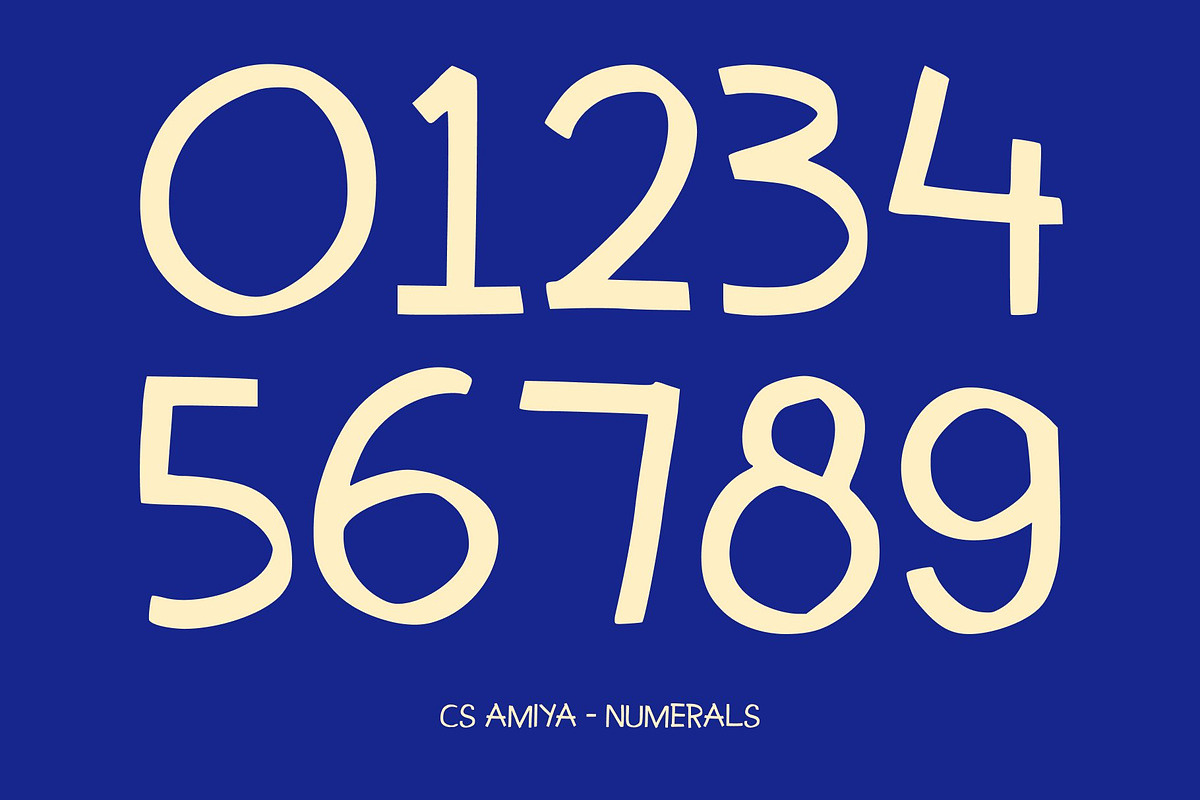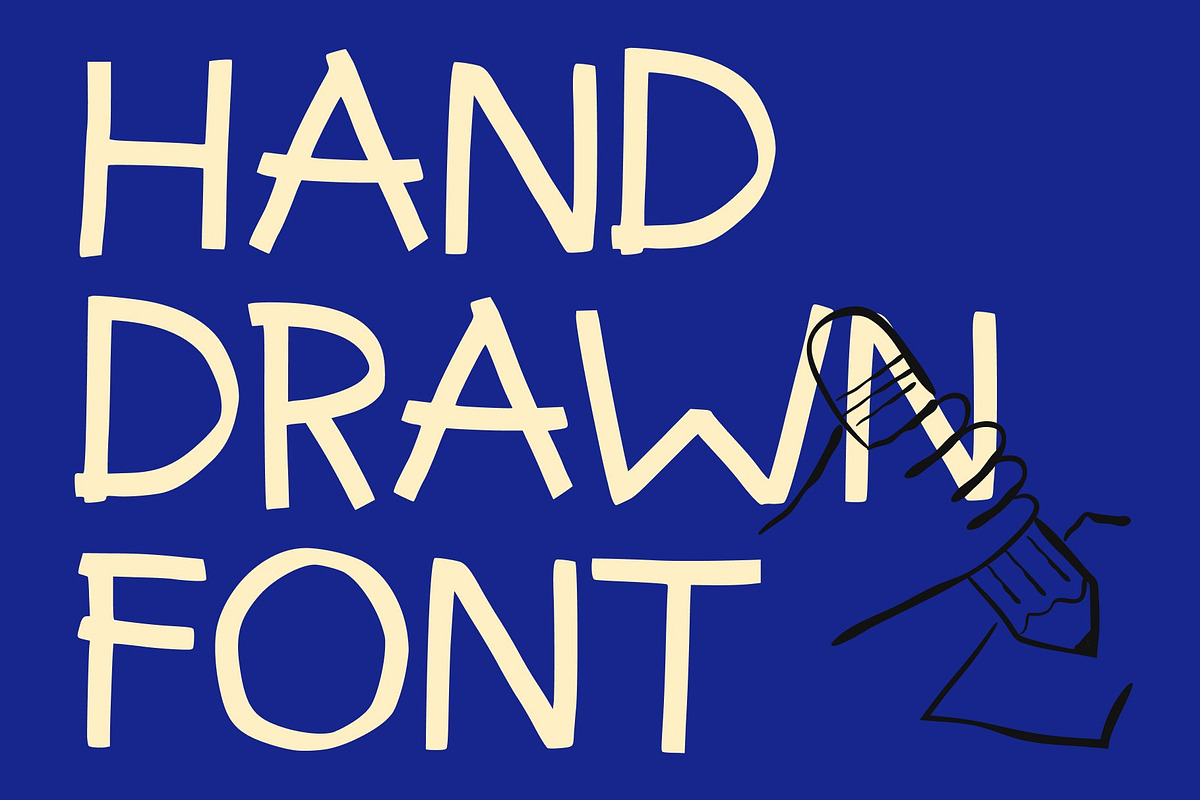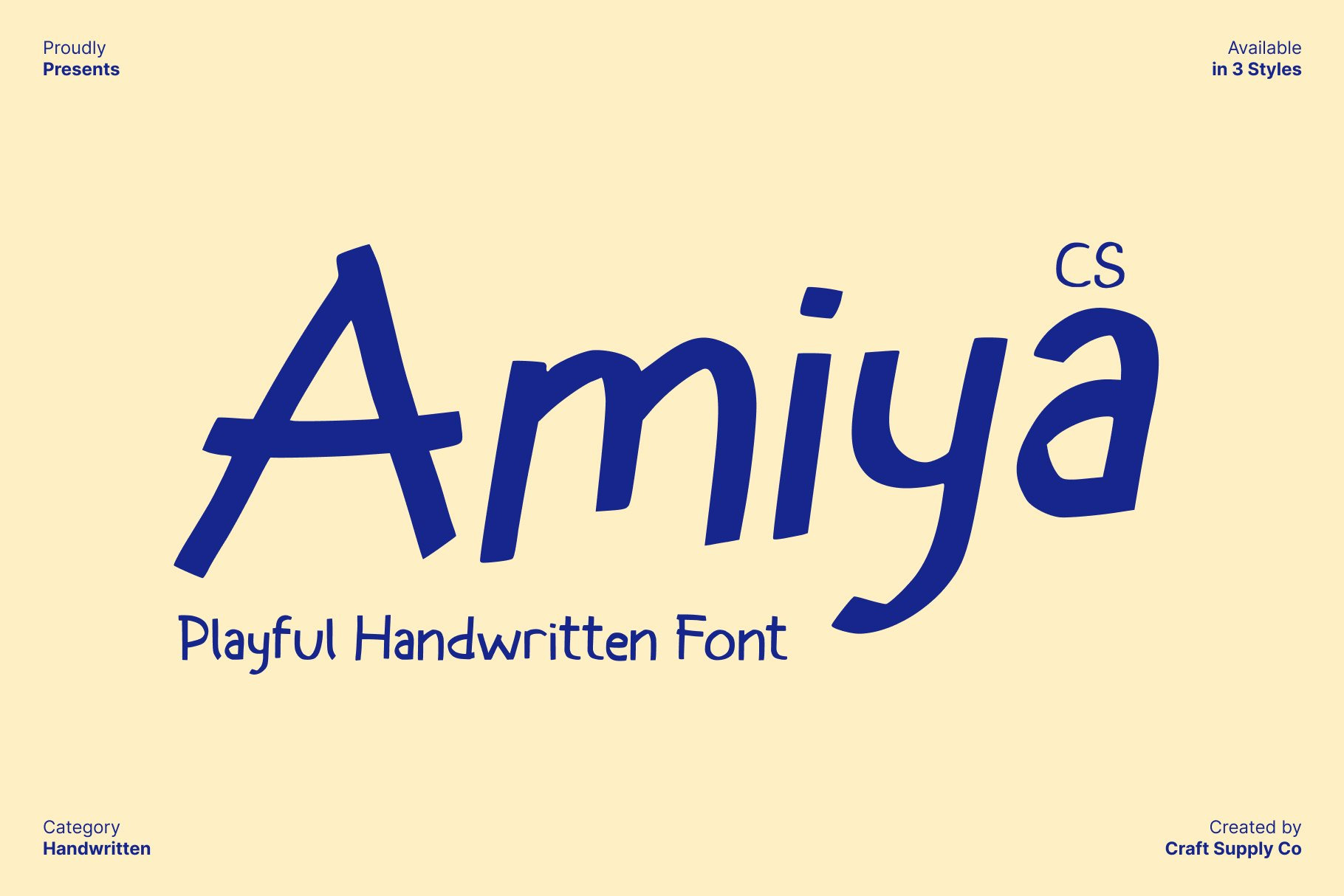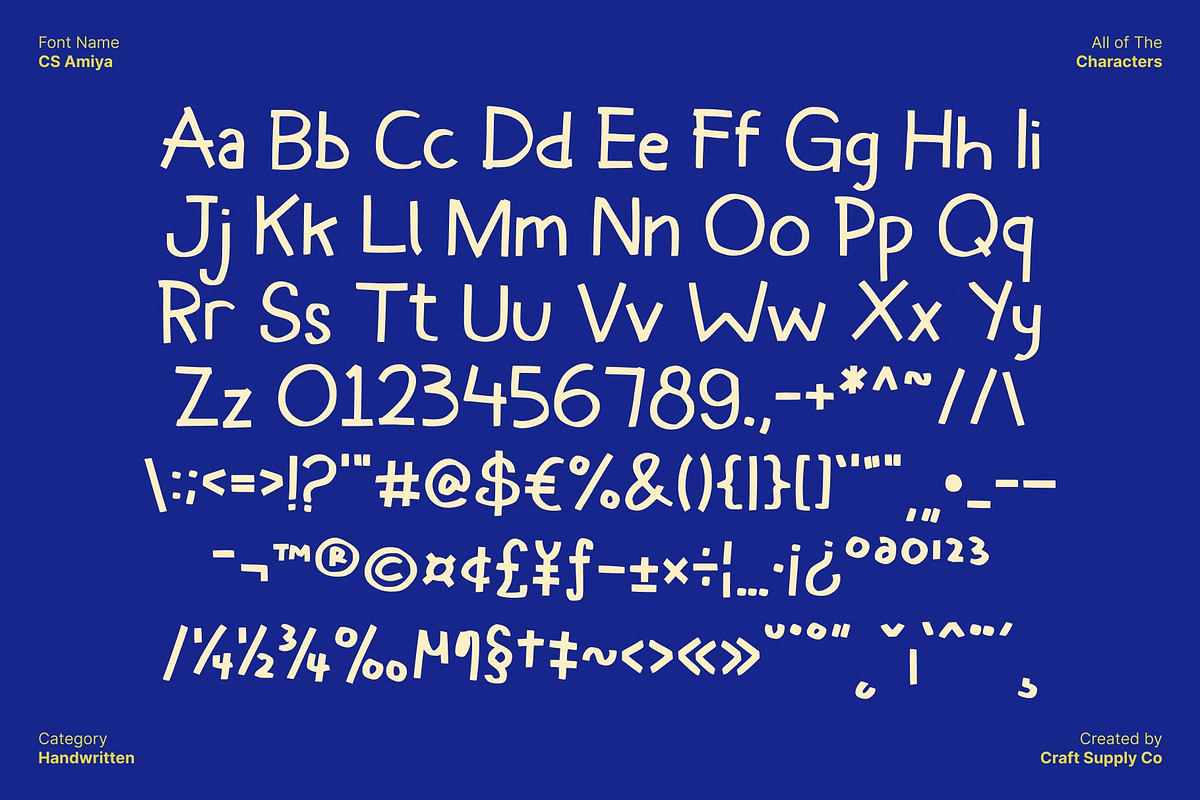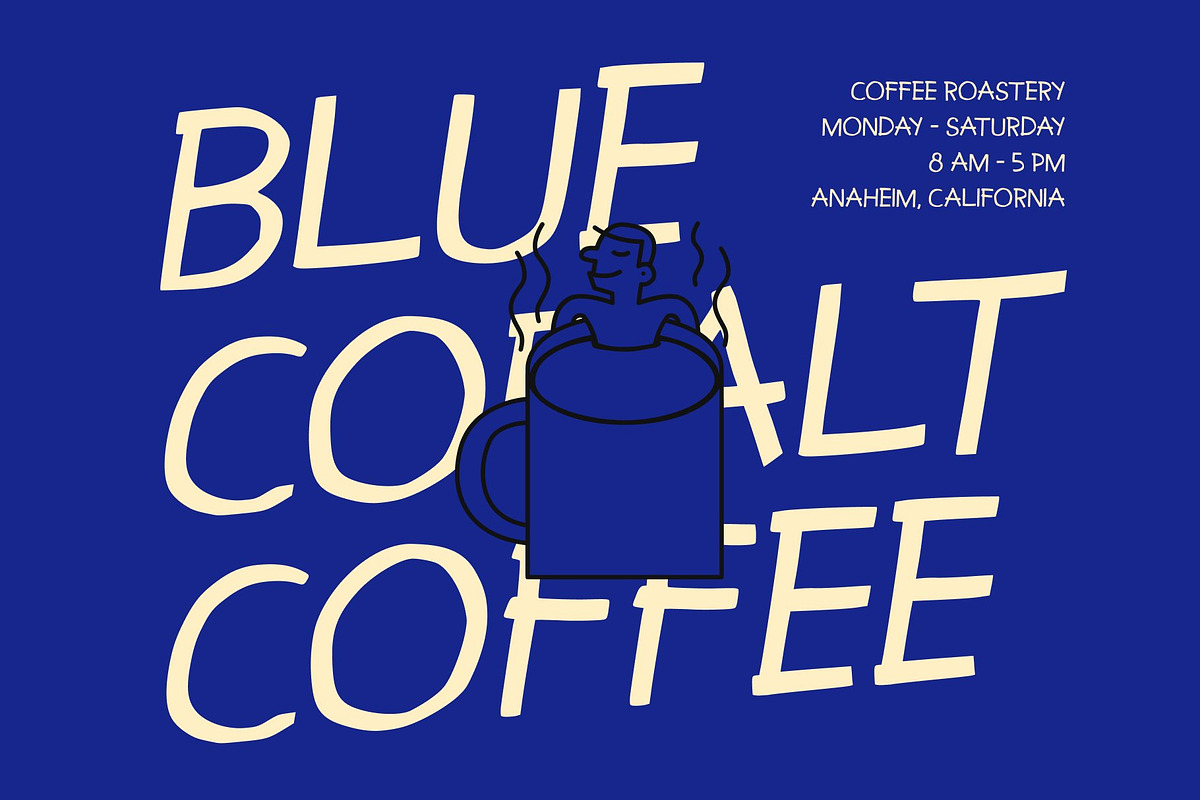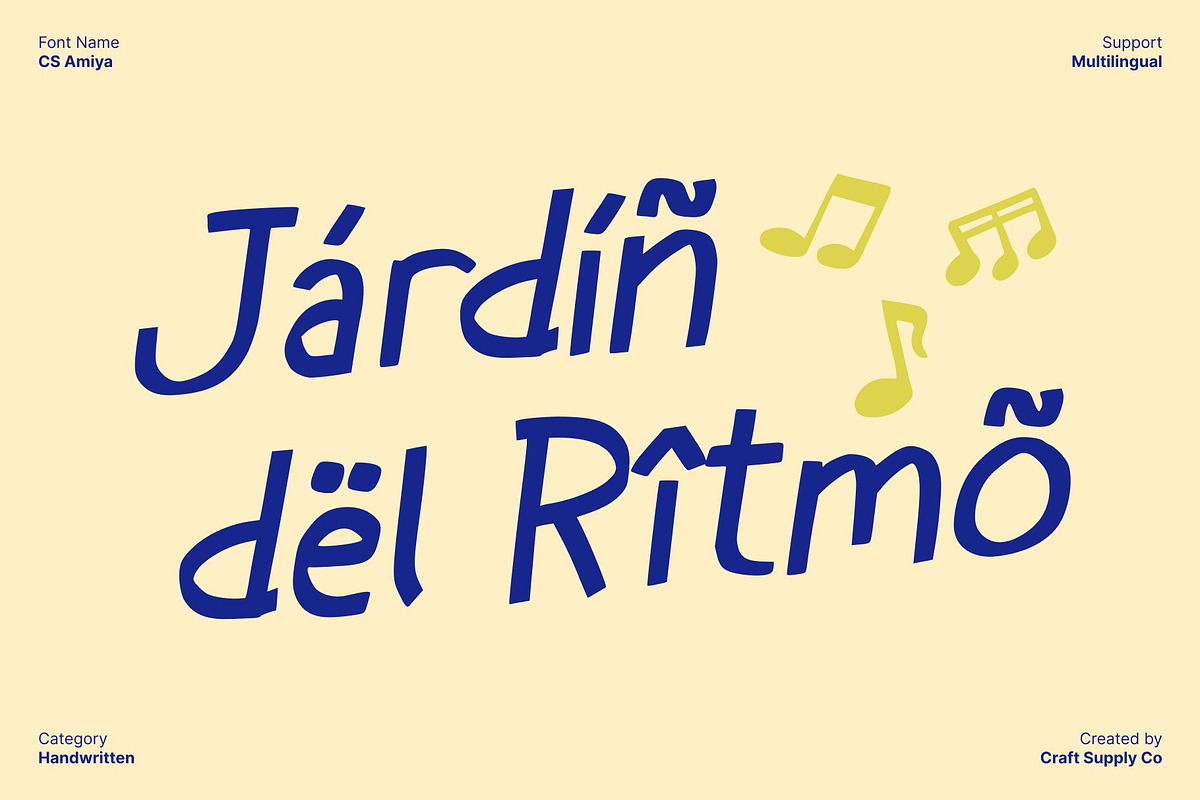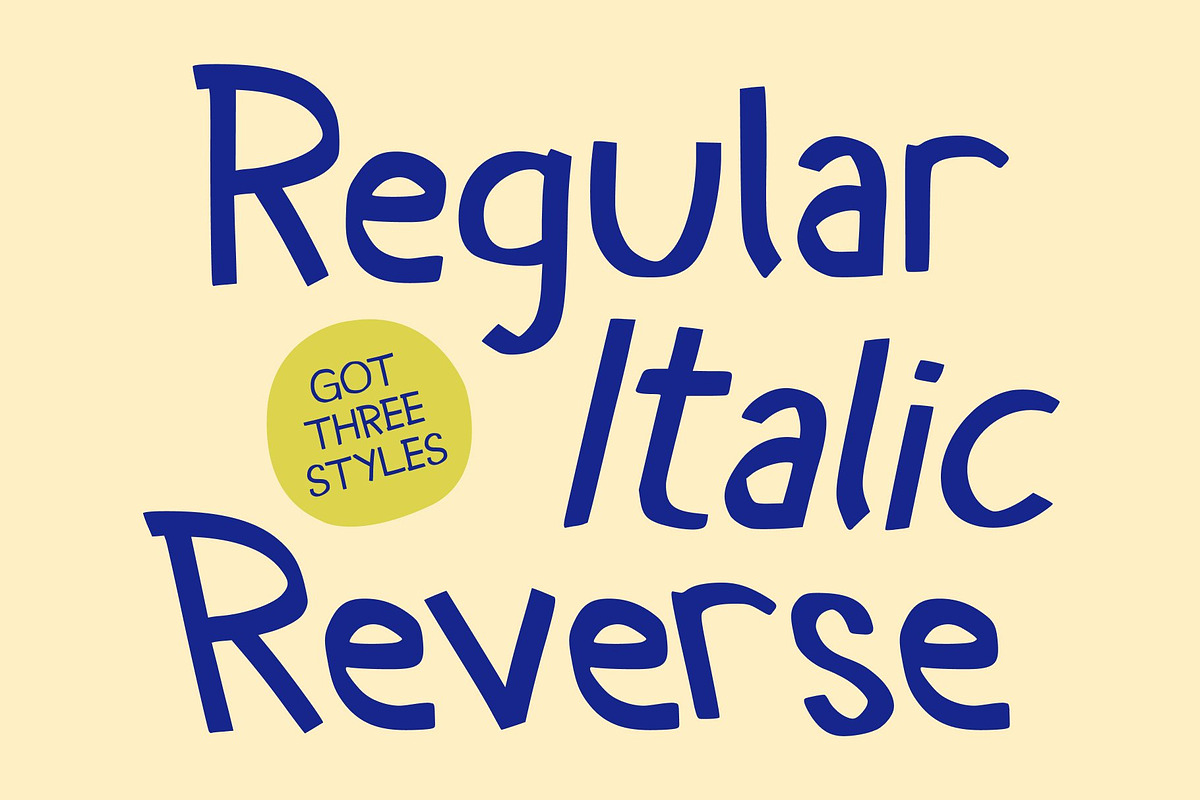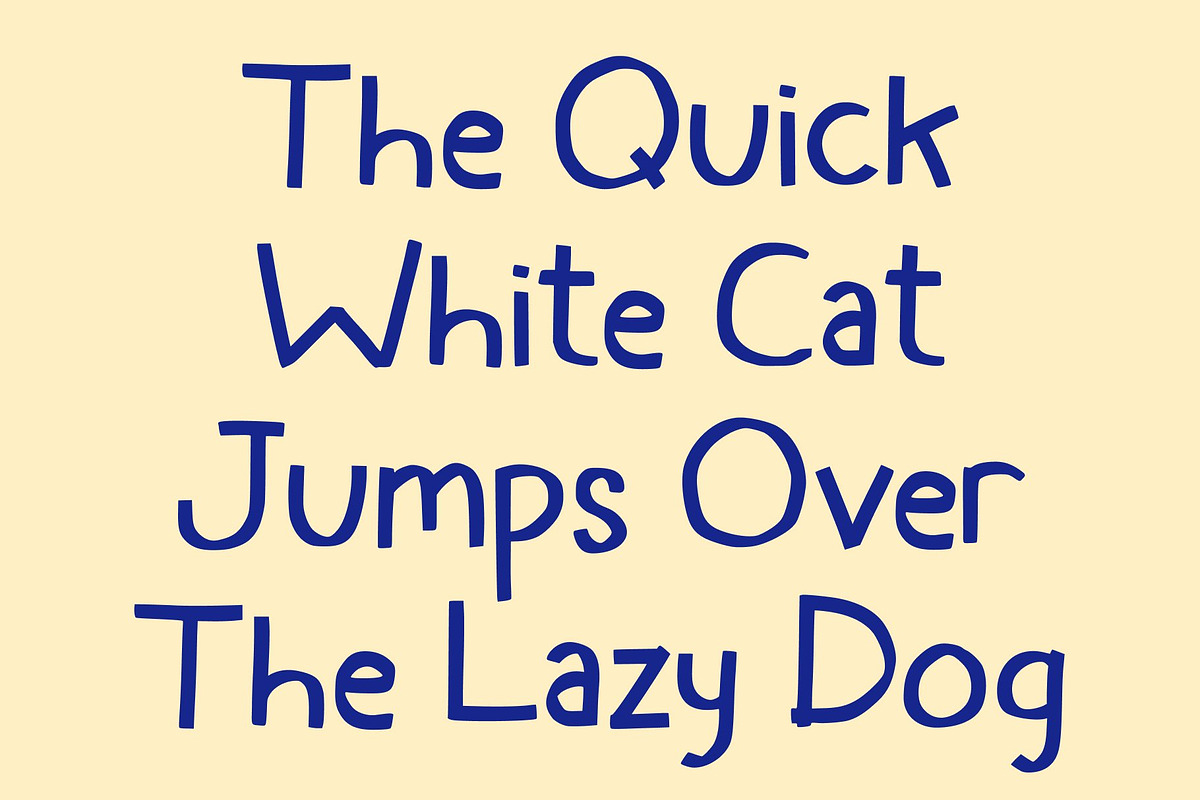
CS Amiya – Handwritten Font
CS Amiya – Expressive Handwritten Display with Geometric Charm
Handwritten Warmth Meets Geometric Style This is a handwritten-style display font that blends friendly expression with a touch of geometric structure. Its carefully crafted letterforms combine natural drawn strokes with subtle geometric styling, creating a unique balance of personality and precision.
Natural Strokes for an Authentic, Personal Feel The organic flow of this font’s strokes brings a warm and approachable character to every design. Each curve feels naturally drawn, adding emotion and personality to your text. This handcrafted quality makes your designs feel more human, expressive, and creatively engaging, enhancing visual storytelling with ease.
Geometric Influence for Modern Visual Appeal While rooted in handwriting, incorporates geometric forms that give it a contemporary edge. These subtle structured elements create clean, balanced letterforms that maintain readability and visual harmony. This blend elevates the font beyond typical handwriting styles, offering a fresh look ideal for professional yet playful applications.
Perfect for Branding, Posters, and Fun Editorial Layouts This font shines across branding, posters, and fun editorial layouts, bringing charm and expressiveness to any creative project. Use it for logo typography, eye-catching titles, packaging design, lifestyle content, or stylized social media graphics. Its friendly tone and expressive mix of geometric and natural elements make the perfect choice for designs that aim to feel modern, approachable, and full of personality.
- CS Amiya Regular
- CS Amiya Italic
- CS Amiya Reverse Italic